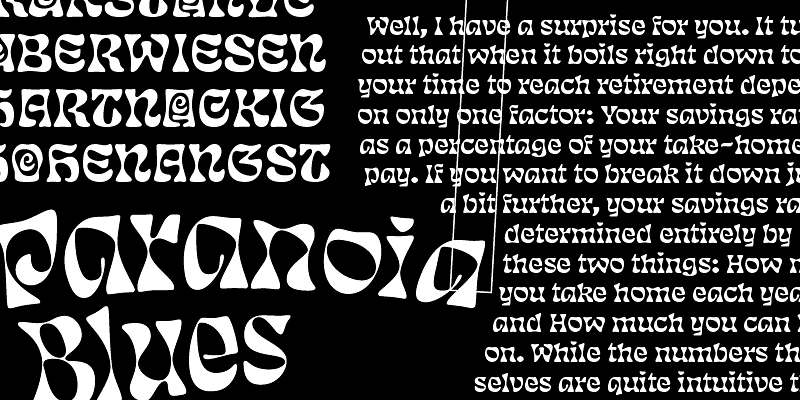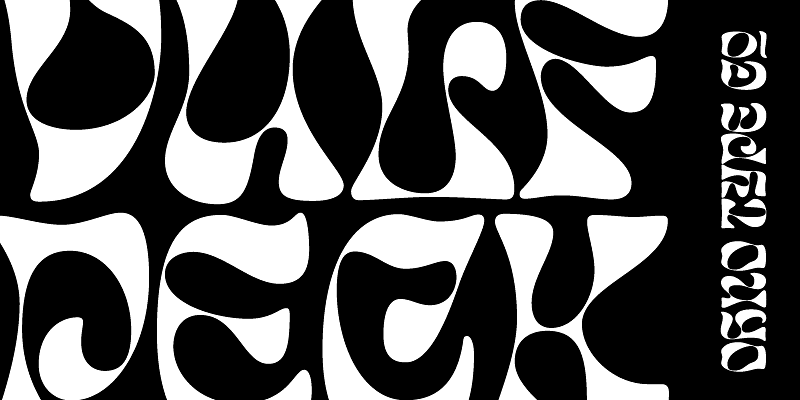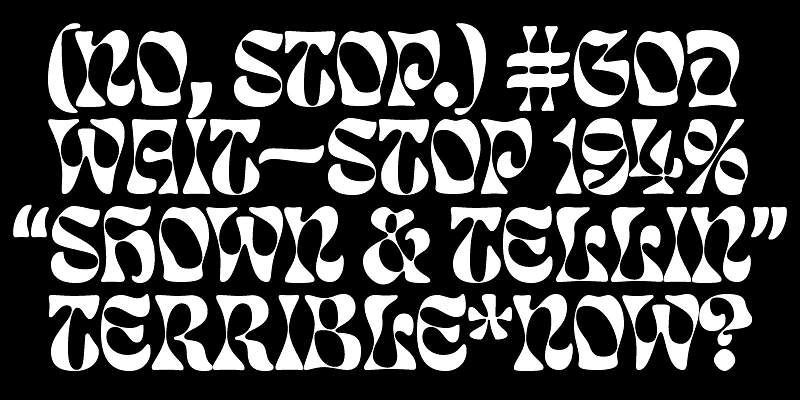
Simply put, it’s a psychedelic version of Eckmannschrift by Otto Eckmann. Although it seems to be heavily rooted in late sixties and early seventies aesthetics, the roots are significantly earlier. This exploration was originally drawn for a single poster, then the family matured slowly on Future Fonts for several months. Finally, it’s ready for primetime, and all the cannabis packaging one could possible use it on. Eckmannpsych comes in three optical sizes so you can use it at many different scales.